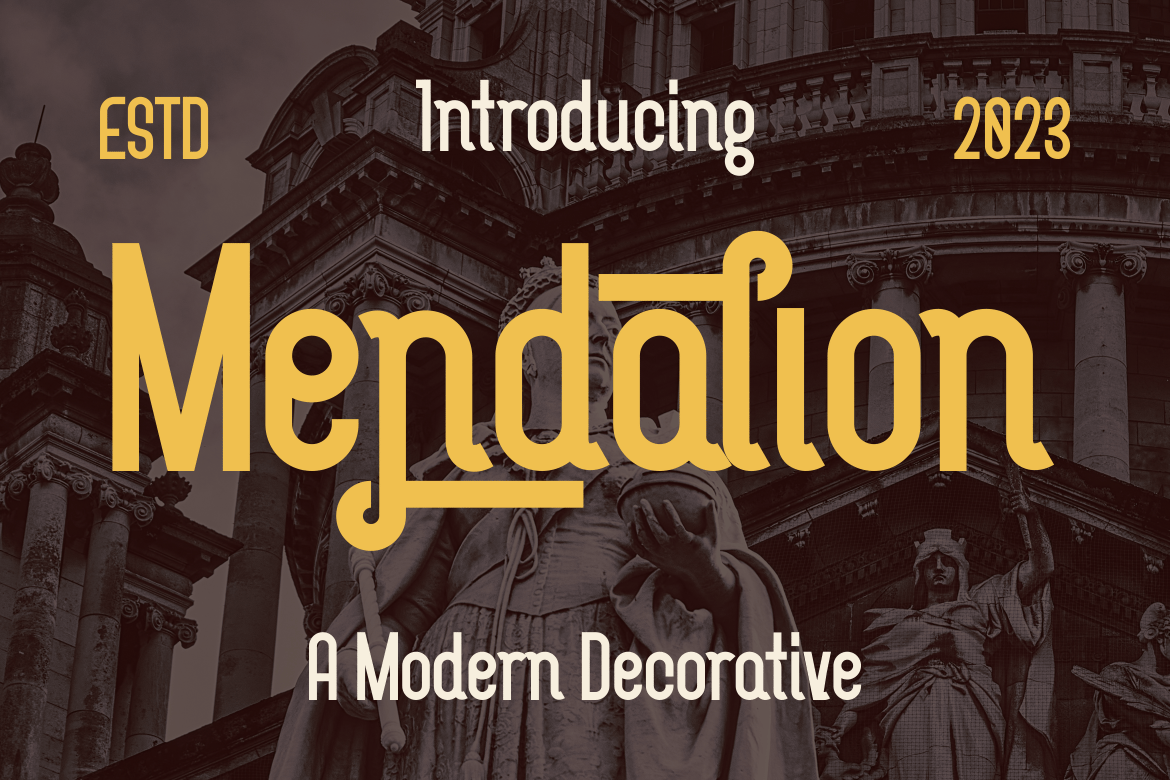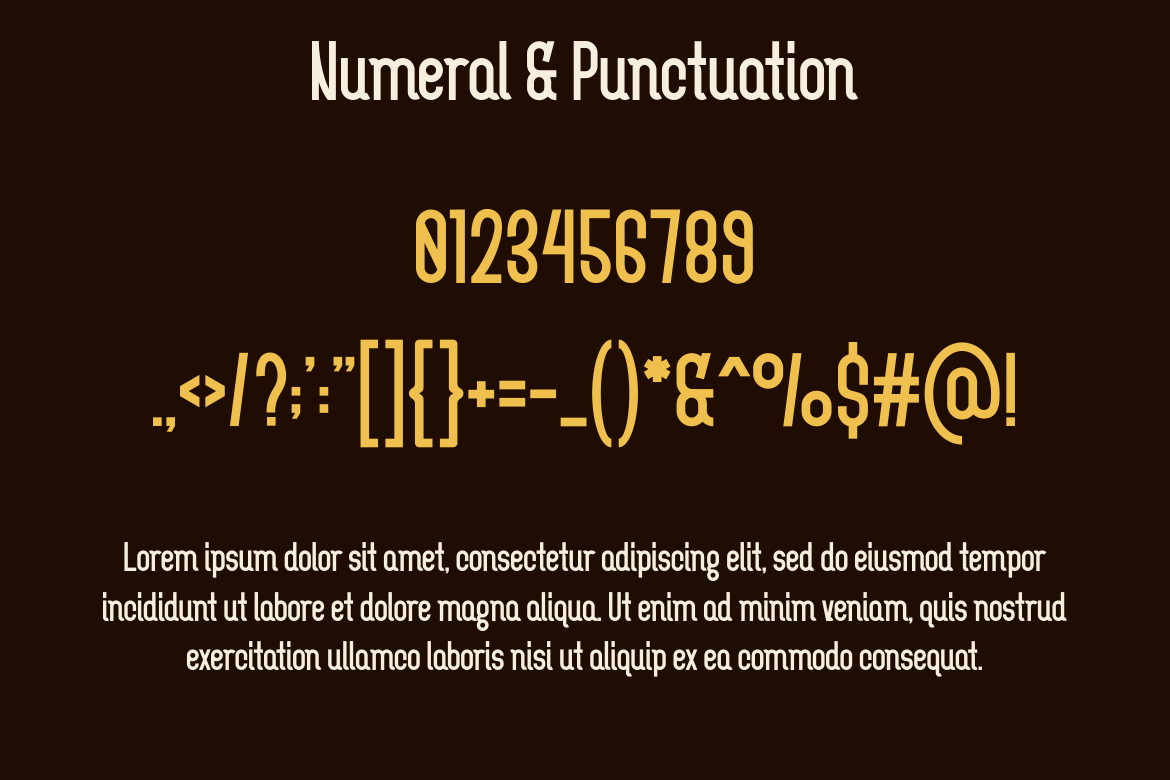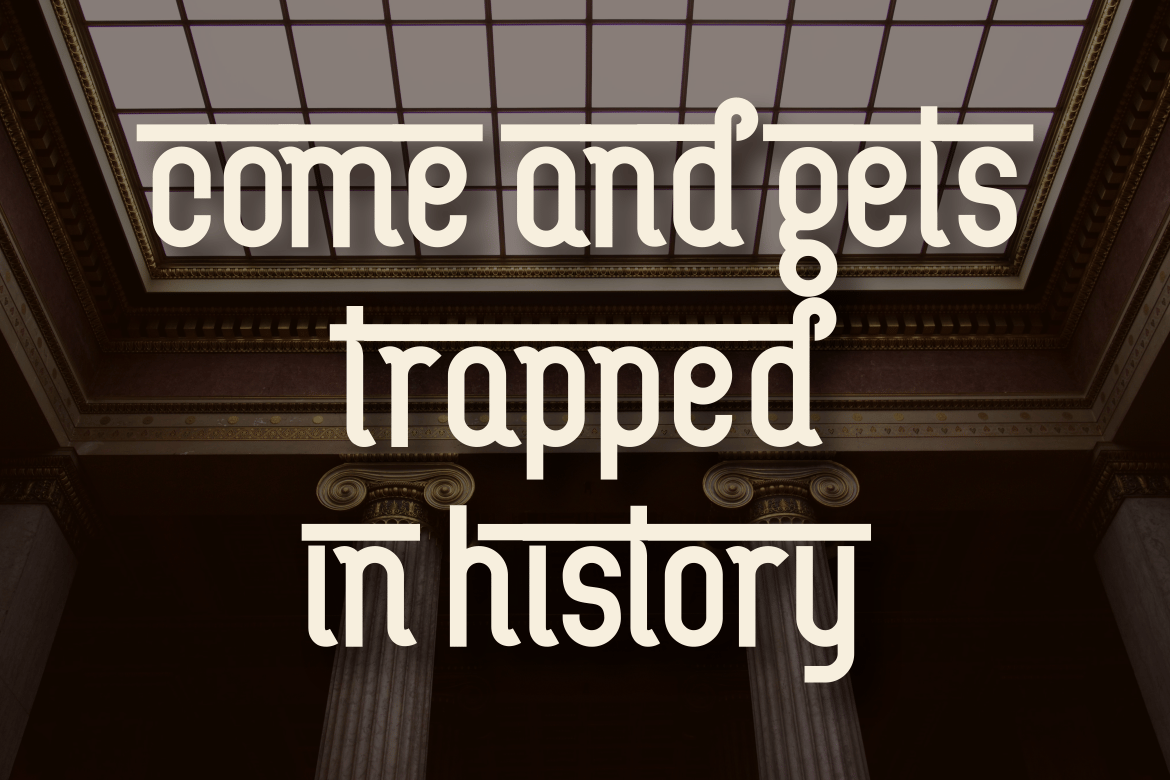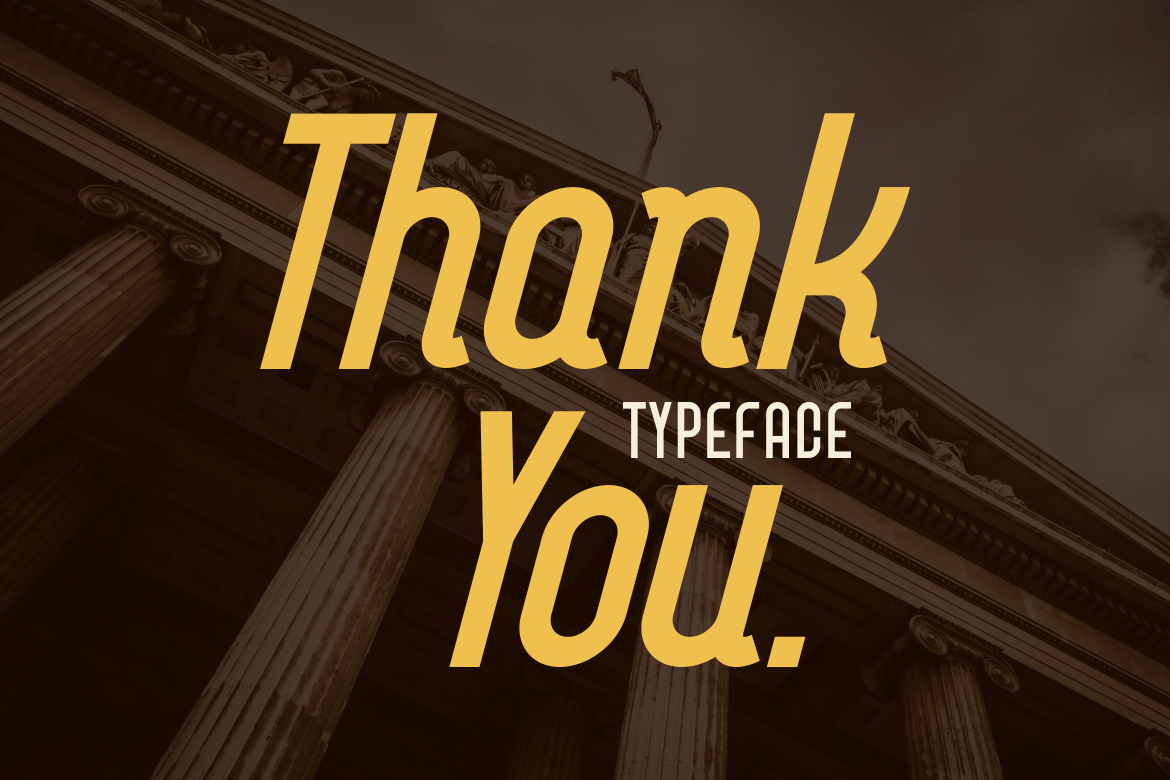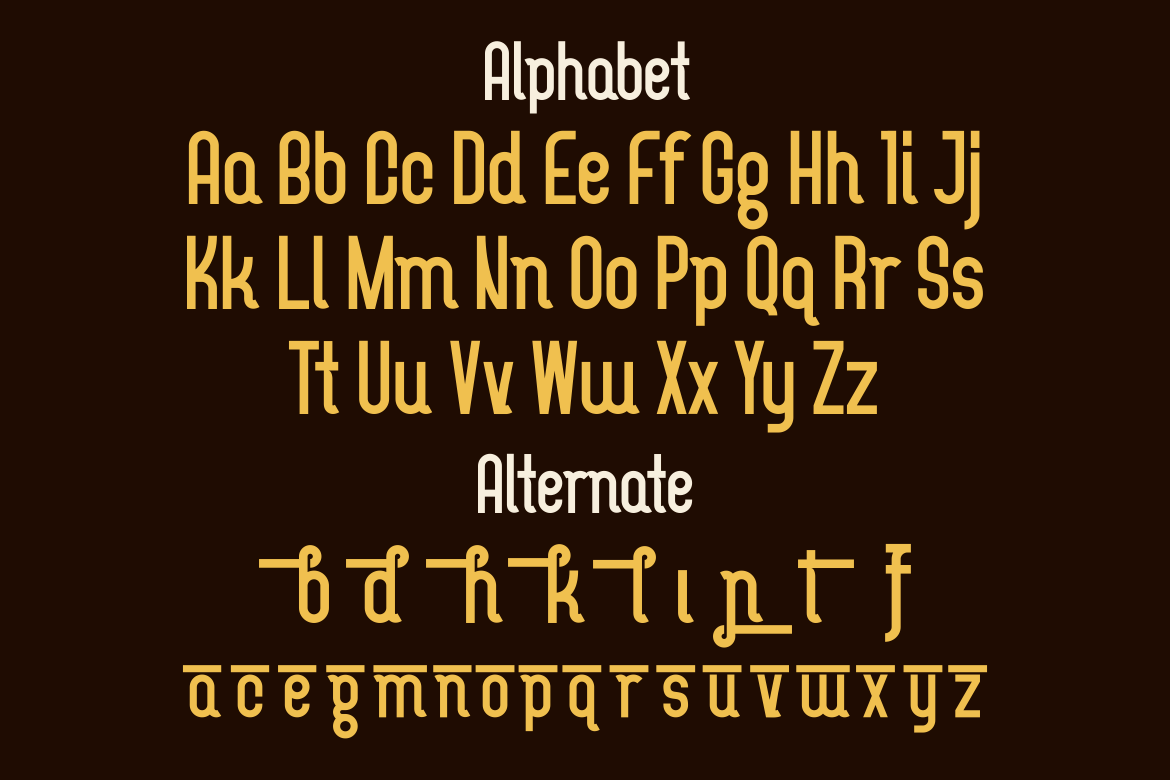
Mendalion – A Modern Decorative Font
Introducing our new product Mendalion Font – Modern Font
Mendalion Font** – Modern Font is a bold and authentic display font. The font is suitable for any branding project like logo, t-shirt printing, Product and many more. outstanding in a wide range of contexts.